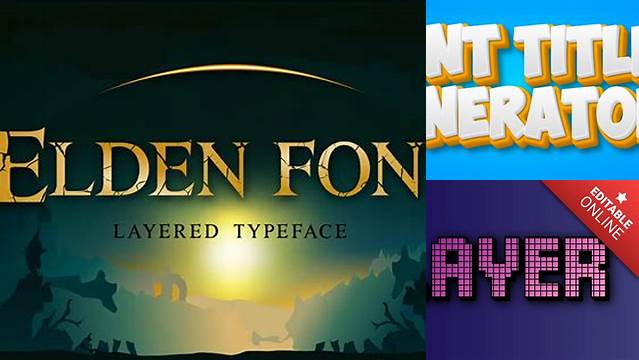
Video Game Fonts Generator: Create Epic Titles
Hey guys! Ever wondered how to get that perfect look for your game's title or UI? You know, that font that just screams "awesome video game"? Well, you've come to the right place! We're diving deep into the world of video game fonts generator, and trust me, it's a lot more exciting than it sounds. Think of fonts as the voice of your game – they set the tone, convey the genre, and make your game instantly recognizable. Whether you're going for a retro pixelated vibe or a futuristic sci-fi feel, the right font can make all the difference. So, let's jump in and explore how you can create some seriously epic titles!
1. Understanding the Importance of Fonts in Video Games
Fonts in video games are way more than just words on a screen; they're a crucial part of your game's identity. The right font can make your game feel professional, immersive, and even nostalgic. Think about some of your favorite games – chances are, the font played a big role in how you perceived the overall experience. Choosing the wrong font, on the other hand, can be a major turn-off. Imagine a gritty, post-apocalyptic shooter using a cutesy, bubbly font – it just wouldn't work, right? So, understanding the importance of fonts in video games is the first step to creating a visually stunning and engaging game.
When you're thinking about your game's font, consider the genre, the target audience, and the overall aesthetic you're going for. A fantasy RPG might benefit from an ornate, medieval-style font, while a sci-fi game might call for something sleek and futuristic. The readability of the font is also super important. If players can't easily read the text, they're going to get frustrated, and that's the last thing you want. So, spend some time exploring different options and see what fits best with your game's vibe. Don't be afraid to experiment – that's where the magic happens!
2. What is a Video Game Font Generator?
Okay, so what exactly is a video game font generator? Simply put, it's a tool that helps you create or customize fonts specifically for video games. These generators come in various forms, from online platforms with drag-and-drop interfaces to more advanced software that gives you granular control over every aspect of the font. The beauty of using a font generator is that it allows you to create unique fonts that perfectly match your game's style. You're not limited to the standard fonts that everyone else is using; you can craft something truly original and memorable. Plus, many generators offer features like pixelation, outlines, and shadows, which are essential for creating that authentic video game look.
Using a video game font generator can save you a ton of time and effort. Instead of manually designing each character, you can use the generator's tools to tweak existing fonts or create new ones from scratch. This is especially helpful if you're working on a large project with a lot of text, like an RPG or a strategy game. And the best part? Many font generators are free or offer free trials, so you can test them out before committing to a purchase. So, if you're serious about making your game look its best, a font generator is definitely a tool you should have in your arsenal.
3. Free Video Game Font Generators Online
Now, let's talk about the good stuff: free video game font generators online! There are tons of awesome resources out there that let you create amazing fonts without spending a dime. These online generators are perfect for indie developers or anyone on a tight budget. They often come with a wide range of customization options, allowing you to create fonts that are pixelated, bold, retro, or futuristic. Some popular free online generators include FontStruct, Pixel Font Generator, and Make Pixel Art. Each of these tools has its own unique features and interface, so it's worth trying out a few to see which one you like best.
The great thing about free video game font generators online is that they're usually very user-friendly. You don't need to be a professional designer to create a cool-looking font. Most generators have intuitive interfaces that let you easily adjust things like letter spacing, font size, and pixel density. Plus, many offer preview options, so you can see how your font will look in different contexts. However, keep in mind that free generators may have some limitations. For example, you might not be able to create fonts with commercial licenses, or you might have limited customization options. But for personal projects or prototyping, free online generators are an excellent choice.
4. Best Paid Video Game Font Generators
If you're looking for more advanced features and greater control over your font design, you might want to consider investing in a best paid video game font generators. Paid font generators typically offer a wider range of customization options, higher-quality output, and commercial licenses, which means you can use your fonts in commercial projects without any legal issues. Some popular paid font generators include FontLab Studio, Glyphs, and Type 3. These tools are used by professional designers and game developers around the world, and they're known for their power and flexibility.
While best paid video game font generators come with a price tag, they can be well worth the investment if you're serious about font design. They often include features like OpenType support, advanced kerning options, and the ability to create variable fonts, which can adapt to different screen sizes and resolutions. Plus, paid font generators usually come with better support and documentation, so you can get help if you run into any issues. If you're planning to create a lot of fonts or if you need fonts for a commercial game, a paid font generator is definitely something to consider.
5. Pixel Font Generators for Retro Games
Ah, pixel fonts – the heart and soul of retro gaming! If you're working on a game that's inspired by classic titles from the 8-bit or 16-bit era, a pixel font generators for retro games is essential. Pixel fonts have a distinct, blocky look that perfectly captures the nostalgia of old-school games. They're also incredibly versatile and can be used for everything from title screens to in-game text. There are many pixel font generators available, both free and paid, that make it easy to create authentic-looking pixel fonts for your game.
When you're using a pixel font generators for retro games, there are a few things to keep in mind. First, pixel fonts are typically designed to be used at specific sizes. Scaling them up or down too much can make them look blurry or distorted. So, it's important to choose a font size that works well with your game's resolution. Second, pixel fonts often have limited character sets. They might not include all the characters you need for your game, especially if you're working in a language other than English. So, make sure the font you choose has all the characters you need before you start using it. Despite these limitations, pixel fonts are a fantastic way to give your game a retro feel, and a good pixel font generator can make the creation process a breeze.
6. How to Create a Font with a Video Game Font Generator
Okay, let's get down to the nitty-gritty: how to create a font with a video game font generator. The process can vary depending on the generator you're using, but the basic steps are generally the same. First, you'll need to choose a generator that suits your needs and budget. Once you've got your generator up and running, you can start designing your font. Most generators will provide a grid or canvas where you can draw each character individually. You can use tools like pencils, brushes, and erasers to create the shapes you want.
When you're learning how to create a font with a video game font generator, it's helpful to start with a clear idea of the style you're going for. Do you want a pixelated font? A bold, sans-serif font? A futuristic font with sharp edges? Having a vision in mind will help you make design decisions as you go. Once you've drawn the basic shapes of your characters, you can start tweaking things like letter spacing, kerning, and line height. These adjustments can make a big difference in the overall readability and appearance of your font. Finally, when you're happy with your font, you can export it in a format that your game engine can use, such as TTF or OTF. Congratulations, you've created your own custom font!
7. Customizing Existing Fonts for Video Games
Sometimes, you don't need to create a font from scratch. You might find an existing font that you like, but it's not quite perfect for your game. That's where customizing existing fonts for video games comes in. Many font generators allow you to import existing fonts and tweak them to your liking. This can be a great way to save time and effort, especially if you're working on a tight deadline. You can change things like the font's weight, slant, and spacing, or add outlines and shadows to give it a more video game-y feel.
When you're customizing existing fonts for video games, it's important to respect the font's original design. You don't want to completely distort the font or make it unrecognizable. Instead, focus on making subtle changes that enhance its readability and fit your game's aesthetic. For example, you might add a slight pixelation effect to give a modern font a retro vibe, or you might increase the letter spacing to make the text easier to read on a low-resolution screen. Customizing fonts can be a fun and creative way to make your game stand out, and it's a skill that every game developer should have in their toolkit.
8. Different Styles of Video Game Fonts
Video game fonts come in a huge variety of styles, each with its own unique personality. Understanding the different styles of video game fonts is crucial for choosing the right font for your game. Some popular styles include pixel fonts, sans-serif fonts, handwritten fonts, and futuristic fonts. Pixel fonts, as we've discussed, are perfect for retro games. Sans-serif fonts, like Arial and Helvetica, are clean and modern, making them a good choice for UI elements and body text. Serif fonts, like Times New Roman and Georgia, have a more traditional look and are often used in fantasy games or RPGs. Handwritten fonts can add a personal touch to your game, while futuristic fonts are ideal for sci-fi titles.
Exploring the different styles of video game fonts can be a fun way to get inspired and discover new possibilities for your game's visual style. Think about the genre of your game and the overall mood you're trying to create. A horror game might benefit from a spooky, distorted font, while a casual puzzle game might call for a friendly, rounded font. Don't be afraid to mix and match different font styles to create a unique look, but always make sure the fonts you choose complement each other and enhance the overall readability of your game.
9. Using Fonts to Enhance Game UI
Your game's UI (user interface) is the bridge between the player and the game world. It's how players interact with the game, access menus, and understand what's happening. So, using fonts to enhance game UI is incredibly important. The fonts you choose for your UI should be clear, legible, and consistent with the overall style of your game. A well-designed UI font can make a big difference in the player's experience, making it easier and more enjoyable to play your game.
When using fonts to enhance game UI, readability should be your top priority. Choose fonts that are easy to read at small sizes and in different lighting conditions. Avoid fonts that are too decorative or complex, as they can be difficult to decipher. Consider using different font styles for different elements of your UI. For example, you might use a bold sans-serif font for headings and a more readable serif font for body text. Also, pay attention to the spacing between letters and lines. Too much or too little spacing can make the text look cluttered or difficult to read. A well-designed UI font can make your game more accessible and enjoyable for players of all ages and abilities.
10. Font Licensing for Video Games
Okay, let's talk about a not-so-fun but super important topic: font licensing for video games. When you're using fonts in your game, you need to make sure you have the proper licenses. Font licenses dictate how you can use a font, whether it's for personal or commercial projects. Using a font without a proper license can lead to legal trouble, so it's crucial to understand the different types of licenses and choose fonts that you're allowed to use.
There are several types of font licensing for video games, including personal licenses, commercial licenses, and open-source licenses. Personal licenses are typically for fonts that you use in non-commercial projects, like personal websites or hobby games. Commercial licenses allow you to use fonts in projects that you sell or use for business purposes. Open-source licenses give you the most freedom to use and modify fonts, but they often come with certain requirements, like giving credit to the font's creator. When you're downloading a font, always check the license agreement to make sure you're using it legally. If you're not sure about a font's license, it's always best to err on the side of caution and contact the font's creator for clarification.
11. Top Fonts Used in Popular Video Games
Ever wondered what fonts those blockbuster games are using? Let's dive into some top fonts used in popular video games. Knowing what the pros use can give you great inspiration and help you choose fonts that resonate with players. Games like The Last of Us often use clean, sans-serif fonts for their UI, ensuring readability and a modern feel. Retro games, like Minecraft, stick to pixel fonts for that nostalgic charm. And then there are games like Final Fantasy that utilize elegant serif fonts to convey a sense of grandeur and fantasy.
Analyzing top fonts used in popular video games isn't just about copying; it's about understanding why these fonts work so well. Is it the clarity? The mood they evoke? Consider the game's genre and target audience. A sci-fi game might benefit from a futuristic, geometric font, while a horror game could use a distressed, handwritten font to create tension. By studying the choices of successful games, you can make more informed decisions about your own font selections and create a visually compelling experience for your players.
12. Combining Fonts for Visual Hierarchy
Combining fonts for visual hierarchy is an art form, guys! It's about creating a clear and engaging layout by using different fonts to signal importance and guide the player's eye. Think of it like this: your headings should stand out, your body text should be easy to read, and your call-to-action buttons should practically scream for attention. Using a mix of font styles, sizes, and weights can achieve this effect.
The key to successfully combining fonts for visual hierarchy is contrast. Pair a bold, attention-grabbing font for titles with a simple, readable font for body text. Maybe use a unique, stylized font for key UI elements, but sparingly, so it doesn't overwhelm the player. Just remember, less is often more. Stick to a maximum of two or three font families to keep your design cohesive. A well-executed font hierarchy can significantly improve the user experience and make your game more intuitive and enjoyable to play.
13. Font Size Considerations for Different Platforms
When it comes to font size considerations for different platforms, one size definitely does not fit all! What looks crisp and clear on a desktop monitor might be tiny and illegible on a mobile screen. And what works on a TV screen viewed from a couch might be too large and overwhelming on a handheld device. It's crucial to optimize your font sizes for the specific platform your game is being played on.
To tackle font size considerations for different platforms, start by testing your game on various devices. Pay close attention to how the text appears in different resolutions and screen sizes. Consider using scalable fonts that adjust automatically to the display. For mobile games, ensure your fonts are large enough to be read comfortably without zooming. For console games, think about the viewing distance. Remember, the goal is to create a seamless and enjoyable experience, regardless of the platform. So, take the time to get your font sizes just right!
14. Kerning and Tracking: Fine-Tuning Your Fonts
Let's talk about the details that separate good typography from great typography: kerning and tracking: fine-tuning your fonts. These might sound like technical terms, but they're essential for making your text look polished and professional. Kerning refers to the spacing between individual letters, while tracking is the overall spacing between all letters in a word or phrase.
Proper kerning and tracking: fine-tuning your fonts ensures that your text is easy to read and visually appealing. Incorrect kerning can lead to awkward gaps or overlapping letters, making your text look messy. Similarly, incorrect tracking can make your text feel cramped or too spread out. Most font generators and design software offer tools to adjust kerning and tracking manually. Take the time to tweak these settings, and you'll be amazed at the difference it makes. It's those little details that elevate your game's design and make it truly shine.
15. Adding Special Characters and Symbols
Spice up your game's text with adding special characters and symbols! These little extras can add personality, clarity, and a touch of flair to your UI, dialogue, and even your game's branding. Think about using icons for health bars, mana points, or inventory items. Special symbols can also be used to highlight important information, like quest markers or dialogue options.
The key to effectively adding special characters and symbols is to use them sparingly and purposefully. Don't clutter your text with unnecessary symbols, but rather, choose those that enhance readability and convey meaning. Many font generators and design software packages include a library of special characters and symbols. You can also create your own custom symbols to perfectly match your game's style. Just remember, a little goes a long way. Use special characters and symbols wisely, and they'll make your game's text pop!
16. Animating Fonts for Dynamic Effects
Want to make your game's text truly stand out? Try animating fonts for dynamic effects! Animated text can grab the player's attention, emphasize key information, and add a touch of visual flair to your UI and cutscenes. Think about text that fades in, pulses, slides across the screen, or even explodes into tiny pieces. The possibilities are endless!
There are several ways to animating fonts for dynamic effects in your game. Some game engines offer built-in animation tools, while others require you to use scripting or external animation software. Experiment with different animation techniques to find what works best for your game's style and tone. Just remember to keep your animations smooth and consistent with the overall visual aesthetic. Over-the-top animations can be distracting, so aim for subtle yet effective movements that enhance the player's experience.
17. Fonts for Different Game Genres (RPG, FPS, etc.)
Choosing the right font is like casting the perfect actor for a role – it needs to fit the genre! Fonts for different game genres (RPG, FPS, etc.) should evoke the game's atmosphere and complement its visuals. For a gritty first-person shooter (FPS), you might want a bold, industrial-looking font. For a sprawling role-playing game (RPG), an elegant, fantasy-inspired font could be ideal.
Consider the typical themes and aesthetics of fonts for different game genres (RPG, FPS, etc.). Sci-fi games often use futuristic, geometric fonts, while horror games might benefit from distressed or handwritten fonts. Casual puzzle games might call for friendly, rounded fonts. The font should reinforce the game's tone, whether it's serious, playful, or suspenseful. Think about how the font contributes to the overall immersion. A well-chosen font can draw players deeper into the game world and make the experience more engaging.
18. The Importance of Readability in Game Fonts
Let's get real, guys: the importance of readability in game fonts can't be overstated! No matter how stylish or unique your font is, if players can't easily read it, you've got a problem. Readability is key for UI elements, dialogue, tutorials, and any other text within your game. A clear, legible font ensures players can understand the information they need to enjoy the game fully.
Prioritize the importance of readability in game fonts by choosing fonts with clean, simple shapes and adequate spacing. Avoid fonts that are too thin, overly decorative, or have unusual letterforms. Consider the font's contrast against the background. Dark text on a light background is generally easier to read than light text on a dark background. Test your font in different lighting conditions and at various sizes to ensure it remains legible. A readable font is a player-friendly font, and that's what ultimately matters.
19. Using Text Effects to Enhance Game Fonts
Level up your game's fonts with using text effects to enhance game fonts! Adding effects like shadows, outlines, glows, and gradients can make your text pop, convey information, and create a unique visual style. A subtle shadow can improve readability, while a vibrant glow can draw attention to important UI elements. Outlines can help text stand out against busy backgrounds, and gradients can add depth and visual interest.
Experiment with different techniques for using text effects to enhance game fonts, but don't overdo it. The goal is to enhance readability and visual appeal, not to create a distracting mess. Use effects sparingly and consistently to maintain a cohesive look. Consider the game's tone and genre when choosing effects. A sci-fi game might use neon glows and sharp outlines, while a fantasy game could benefit from subtle shadows and textures. Text effects are a powerful tool, so use them wisely!
20. Color Considerations for Video Game Fonts
Color is a powerful tool in game design, and that includes color considerations for video game fonts. The color of your text can influence mood, draw attention, and improve readability. A bright, contrasting color can make text stand out, while a subtle, muted color can blend seamlessly into the background. Think about how color can convey information, such as using red for warnings or green for positive feedback.
When making color considerations for video game fonts, think about the overall color palette of your game. The text color should complement the background and other UI elements. Consider colorblindness and ensure your text is legible for all players. Test your color choices in different lighting conditions and on various displays. A well-chosen font color can make your text more effective and engaging, contributing to a better overall gaming experience.
21. Font Generator Software vs. Online Tools
So, you're ready to create some killer fonts, but the question is: Font generator software vs. online tools? Each option has its pros and cons, so let's break it down. Font generator software, like FontLab Studio or Glyphs, offers professional-level features and precise control over every aspect of font design. They're perfect for serious typographers and game developers who need maximum flexibility.
On the other hand, font generator software vs. online tools shows that online tools, such as FontStruct or Pixel Font Generator, are often free or more affordable and offer a user-friendly interface. They're great for beginners or anyone who needs a quick and easy solution. Online tools typically have fewer features than software, but they can still produce excellent results. Ultimately, the best choice depends on your budget, skill level, and the complexity of your font design needs. Try both options and see which one clicks with you!
22. Optimizing Fonts for Different Screen Resolutions
Got a game that looks fantastic on one screen but blurry on another? Time to talk about optimizing fonts for different screen resolutions! The key is to ensure your fonts remain crisp and legible, whether players are gaming on a tiny mobile device or a massive 4K display. This involves considering font size, anti-aliasing, and scaling techniques.
One approach for optimizing fonts for different screen resolutions is to use vector fonts, which can scale smoothly without losing quality. Another is to create multiple versions of your fonts for different resolutions. Test your game on a variety of devices and screen sizes to identify any font-related issues. Remember, a clear and readable font is crucial for a positive gaming experience, so take the time to optimize your fonts for all resolutions.
23. Exporting Fonts for Use in Game Engines
Alright, you've crafted the perfect font – now how do you get it into your game? Exporting fonts for use in game engines is the final step in the font creation process. Most game engines support common font formats like TTF (TrueType Font) and OTF (OpenType Font). The trick is to export your font with the correct settings to ensure it looks its best in your game.
When exporting fonts for use in game engines, consider the file size and performance implications. Large font files can slow down your game, so it's best to optimize your fonts by removing unnecessary characters or glyphs. Choose the appropriate rendering settings in your game engine to ensure your fonts appear sharp and clear. Test your fonts in your game engine to identify any issues with scaling or rendering. With a little care, you can seamlessly integrate your custom fonts into your game and enhance its visual style.
24. Creating Fonts for Non-Latin Alphabets
Reaching a global audience? Then creating fonts for non-Latin alphabets is a must! Supporting languages like Chinese, Japanese, Korean, or Cyrillic requires fonts with a much larger character set than typical Latin-based fonts. This can be a complex process, but it's essential for making your game accessible to a wider player base.
When creating fonts for non-Latin alphabets, consider the unique characteristics of each script. Some languages have thousands of characters, while others have complex glyph shapes. Use font generators that support these character sets and provide tools for designing them effectively. Collaborate with native speakers to ensure your fonts are accurate and legible. Localizing your game's fonts is a crucial step in making it a global success.
25. Collaborating with Font Designers for Custom Fonts
Sometimes, the best way to get the perfect font is to bring in a pro! Collaborating with font designers for custom fonts can give your game a unique and polished look that sets it apart. A skilled font designer can create a font tailored to your game's specific style, genre, and target audience.
The key to successful collaborating with font designers for custom fonts is clear communication. Share your vision, provide examples, and give feedback throughout the design process. Discuss the font's intended use, including UI elements, dialogue, and branding. Be prepared to pay for the designer's time and expertise, as custom font design is a specialized skill. A custom font can be a valuable asset that enhances your game's identity and appeals to players.
26. Font Fallbacks and Accessibility Considerations
Let's talk about inclusivity! Font fallbacks and accessibility considerations are essential for ensuring all players can enjoy your game. Font fallbacks are backup fonts that are used if the primary font is not available on a player's system. This prevents your text from appearing in a generic, unstylized font.
In terms of font fallbacks and accessibility considerations, you should make sure your font is readable for players with visual impairments. Use high-contrast colors and choose fonts with clear, simple shapes. Avoid using color as the sole means of conveying information. Provide options for players to adjust font sizes and colors to their preferences. By considering accessibility, you can create a game that's enjoyable for everyone.
27. Testing Fonts in Your Game Engine
Don't just assume your fonts will look perfect in your game – testing fonts in your game engine is a crucial step! What looks great in your font generator might not translate perfectly to your game. Factors like rendering methods, resolution, and lighting can affect how your fonts appear.
When testing fonts in your game engine, check for issues like blurring, aliasing, and incorrect spacing. Test your fonts at different sizes and in various parts of your game, including UI elements, dialogue boxes, and in-game text. Pay attention to how your fonts look against different backgrounds. If you spot any problems, adjust your font settings or export options and test again. This iterative process will ensure your fonts look their best in your final product.
28. Font Naming Conventions and Organization
Keep your font library tidy with font naming conventions and organization! A clear and consistent naming system makes it easy to find and manage your fonts, especially when you're working on a large project with multiple team members. Use descriptive names that indicate the font's style, weight, and any special characteristics.
Consider creating folders to font naming conventions and organization based on font type, project, or designer. Use a version control system to track changes to your fonts. Document your font naming conventions and share them with your team. A well-organized font library saves time and prevents confusion, ensuring your font workflow is smooth and efficient.
29. The Future of Fonts in Video Games
What's next for game typography? Let's gaze into the future of fonts in video games! We're likely to see more dynamic fonts that adapt to gameplay events, personalized fonts that cater to player preferences, and even AI-generated fonts that match the game's evolving style.
The future of fonts in video games could also see more advanced rendering techniques that improve font clarity and legibility on all devices. Variable fonts, which allow for fine-grained control over font weight, width, and other characteristics, are also likely to become more common. As technology advances, fonts will continue to play a vital role in creating immersive and engaging gaming experiences.
30. Resources for Finding Inspiration for Game Fonts
Stuck in a font rut? Time to seek some inspiration! Resources for finding inspiration for game fonts are all around you. Check out other video games, graphic design websites, and typography blogs. Browse font libraries like Google Fonts, Adobe Fonts, and MyFonts. Look at movie posters, book covers, and even architectural signage.
Don't be afraid to resources for finding inspiration for game fonts from unexpected places. Nature, art, and fashion can all spark font ideas. Create a mood board of fonts you admire and analyze what makes them effective. Experiment with different font combinations and styles. The more you explore, the more creative your font choices will become. So, get out there and get inspired!